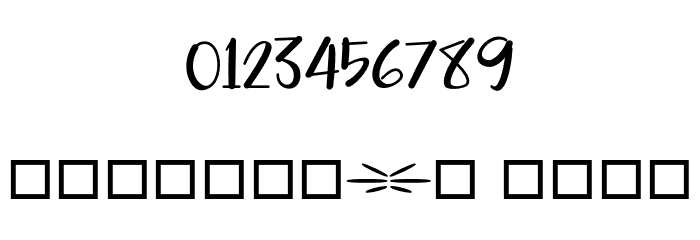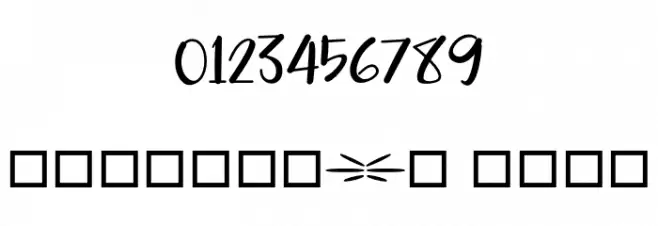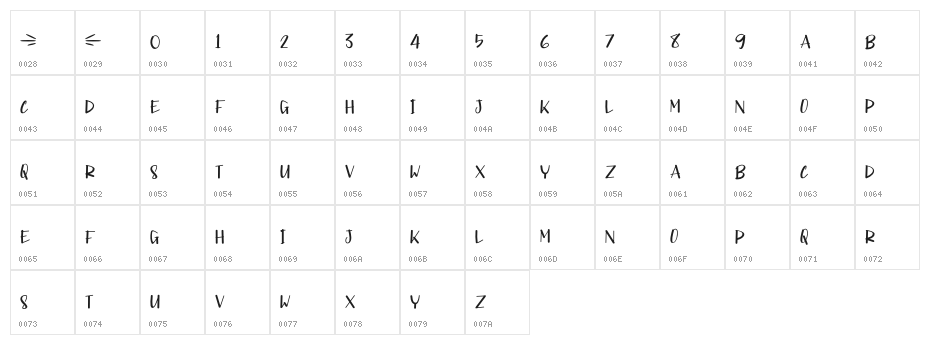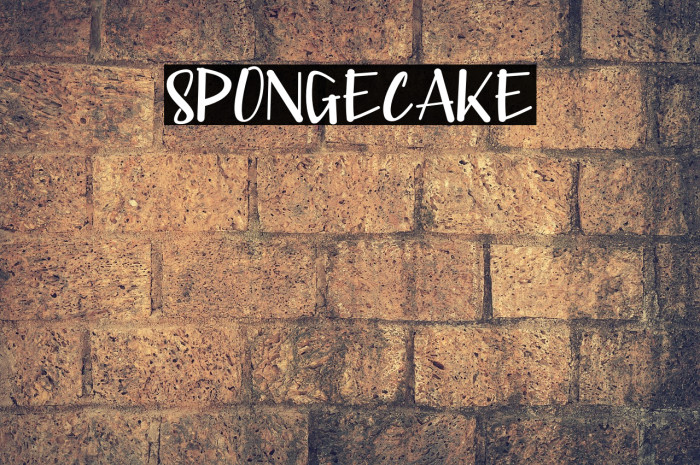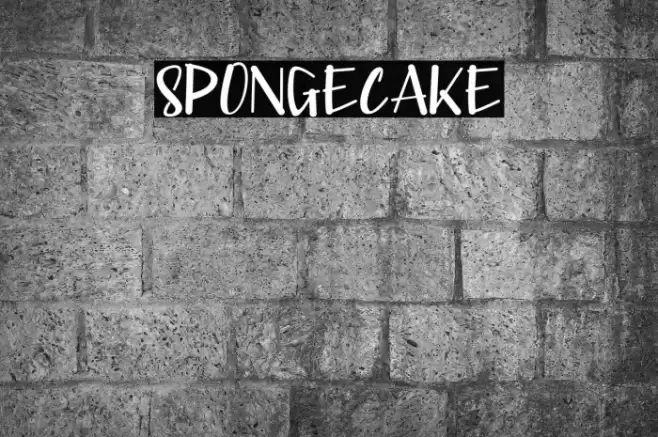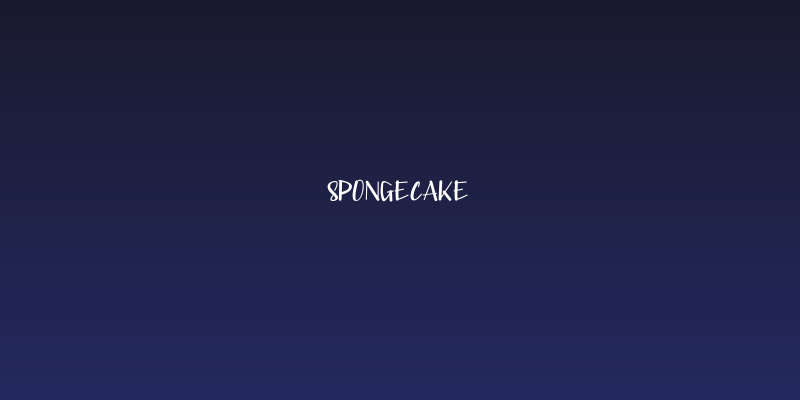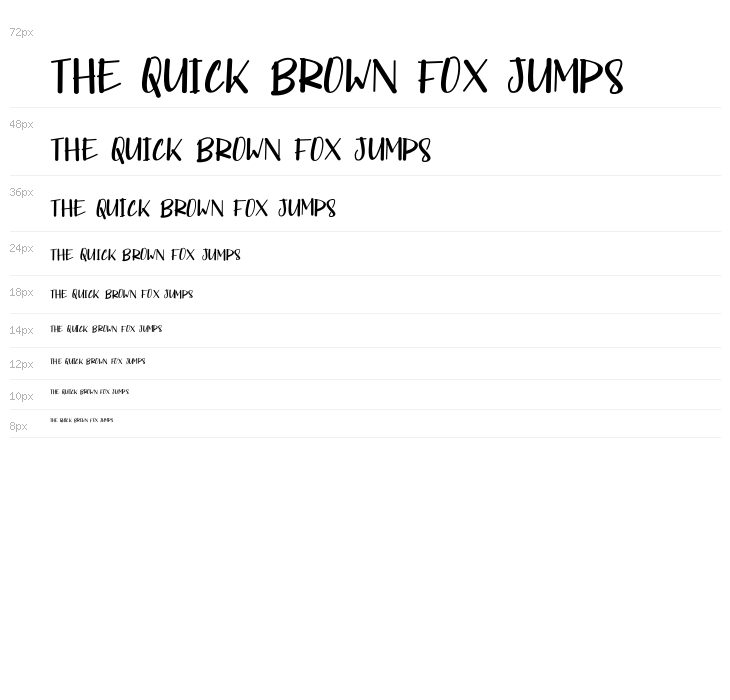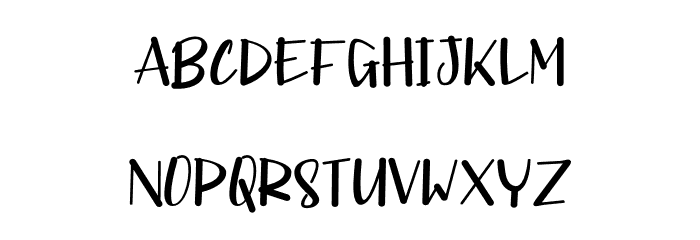
SPONGECAKE Font
SPONGECAKE Description
This font exhibits a playful and casual handwritten style, characterized by its uneven strokes and slightly slanted letters. The uppercase letters are bold and dynamic, with a sense of movement that adds a lively touch. The lowercase letters maintain the same energetic feel, with some letters featuring unique loops and curves that enhance the font's informal appearance. The numbers are consistent with the overall style, offering a cohesive look. The special characters are creatively designed, fitting seamlessly with the rest of the font. This font's overall aesthetic is friendly and approachable, making it suitable for projects that require a personal and informal touch.